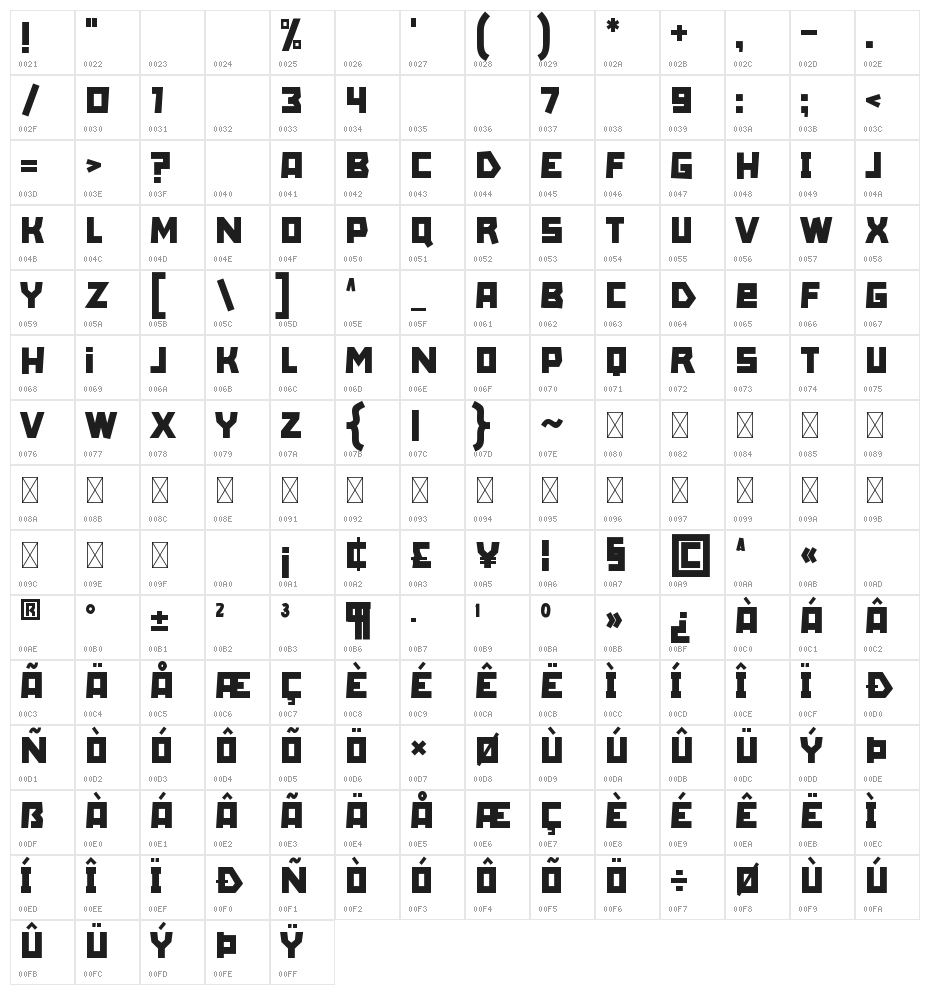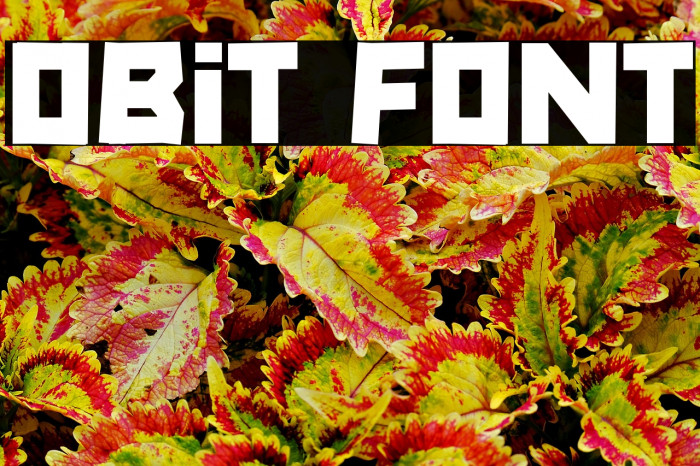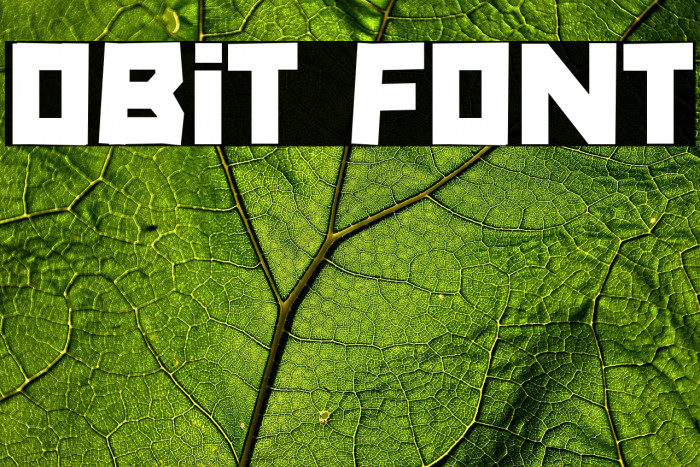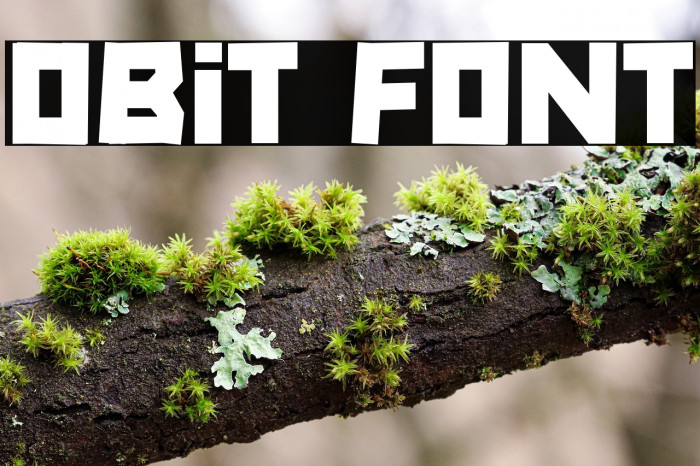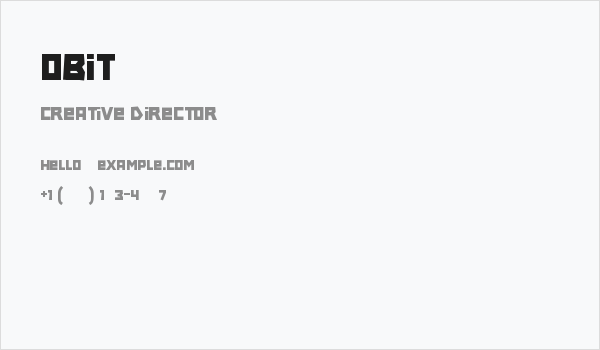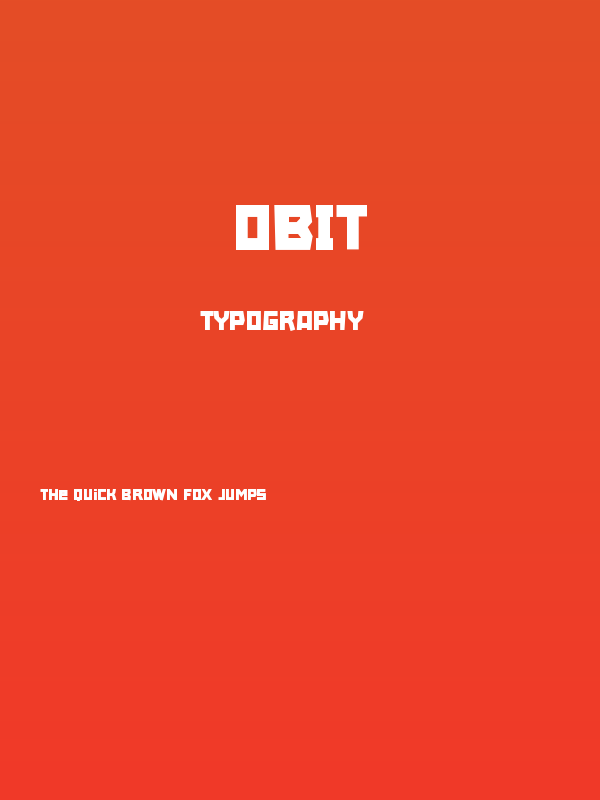
Obit Font
This font features a bold, geometric style with sharp angles and a strong presence. The uppercase letters are distinct with a blocky, almost stencil-like appearance, giving it a modern and edgy feel. The numbers and special characters maintain this boldness, ensuring consistency across all characters. The design is clean yet striking, making it suitable for attention-grabbing headlines or impactful logos. Its unique style is both contemporary and versatile, allowing it to stand out in various design contexts.
| Proposed Projects | Ideal for branding, posters, headlines, and any project requiring a strong visual impact. |